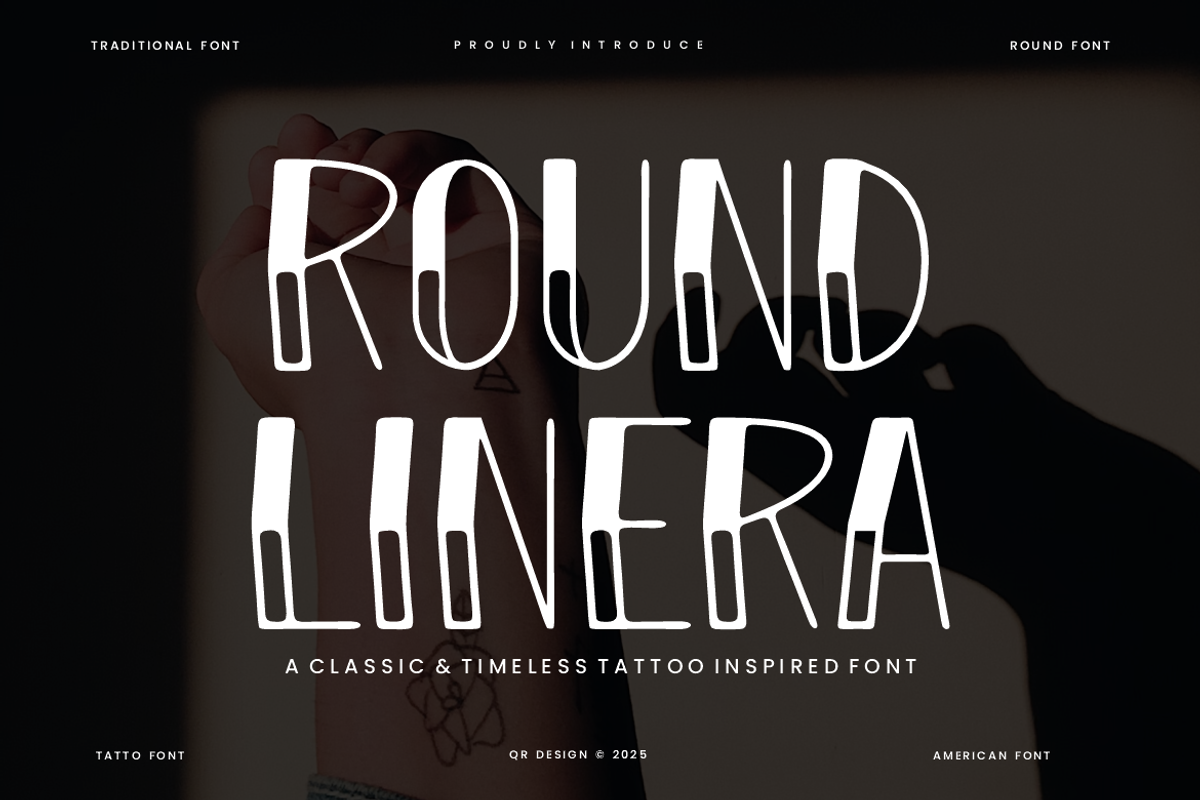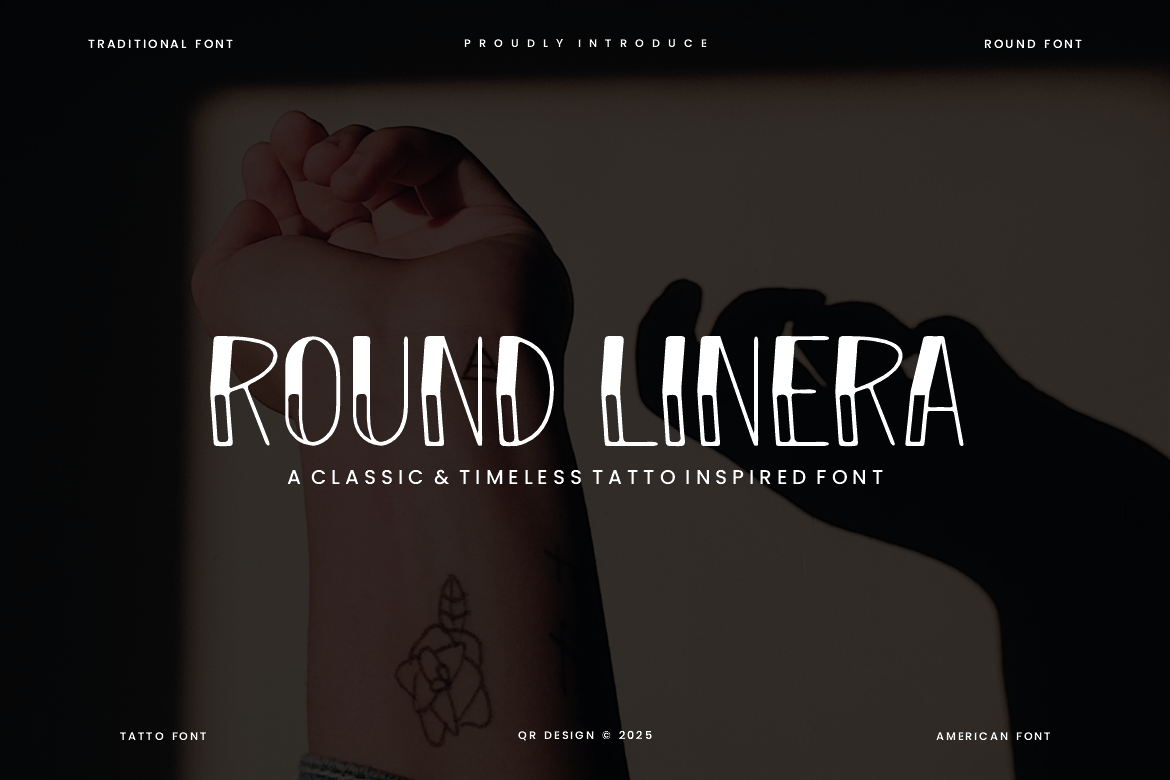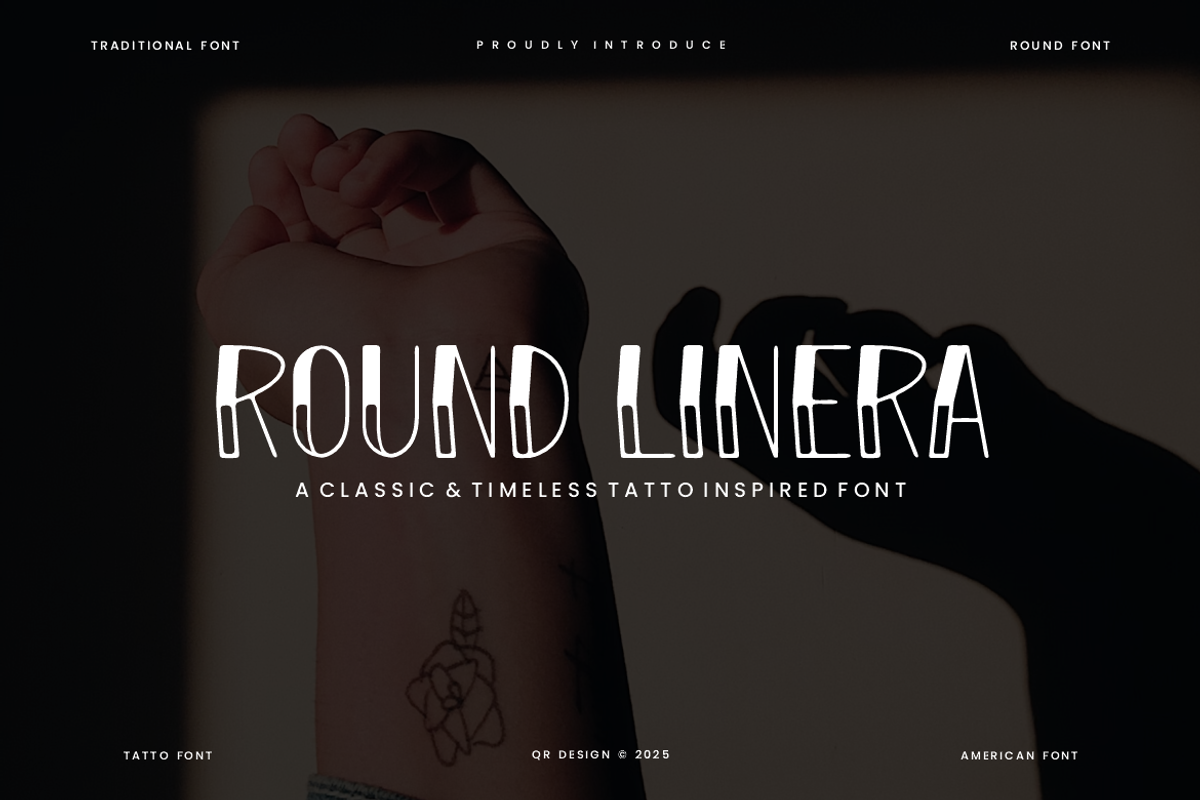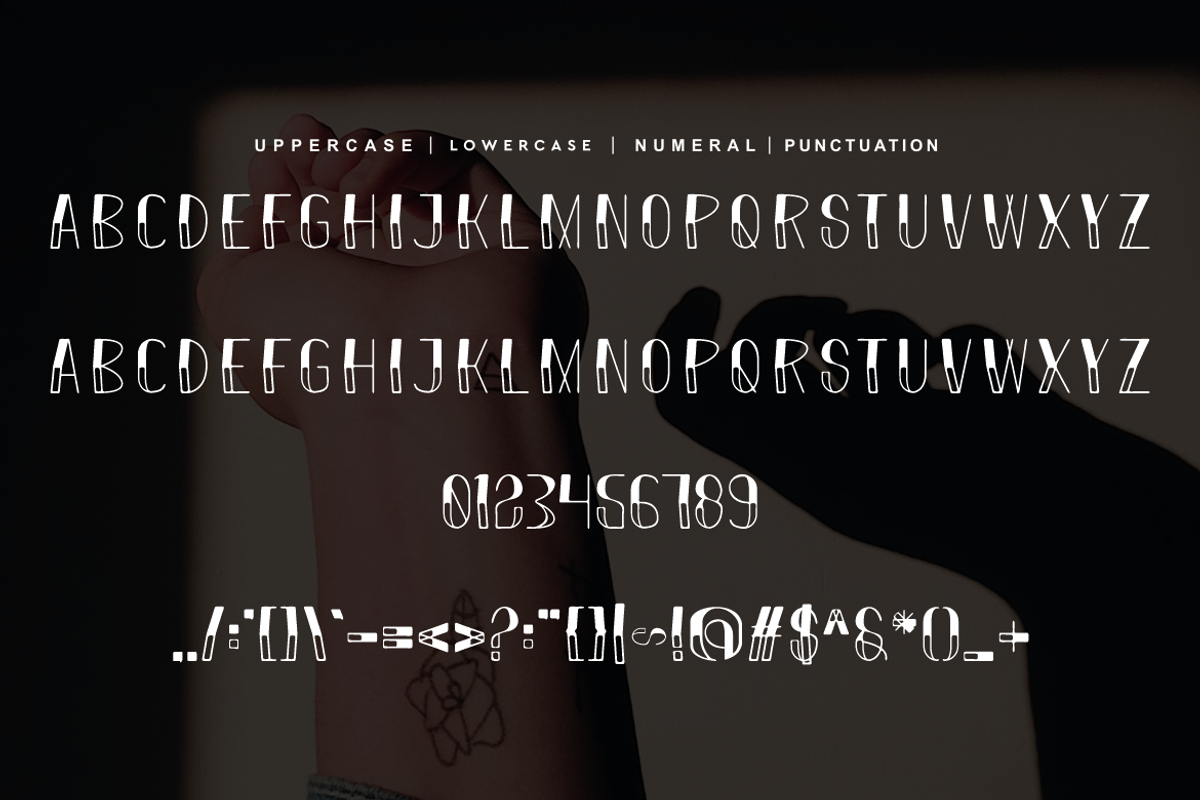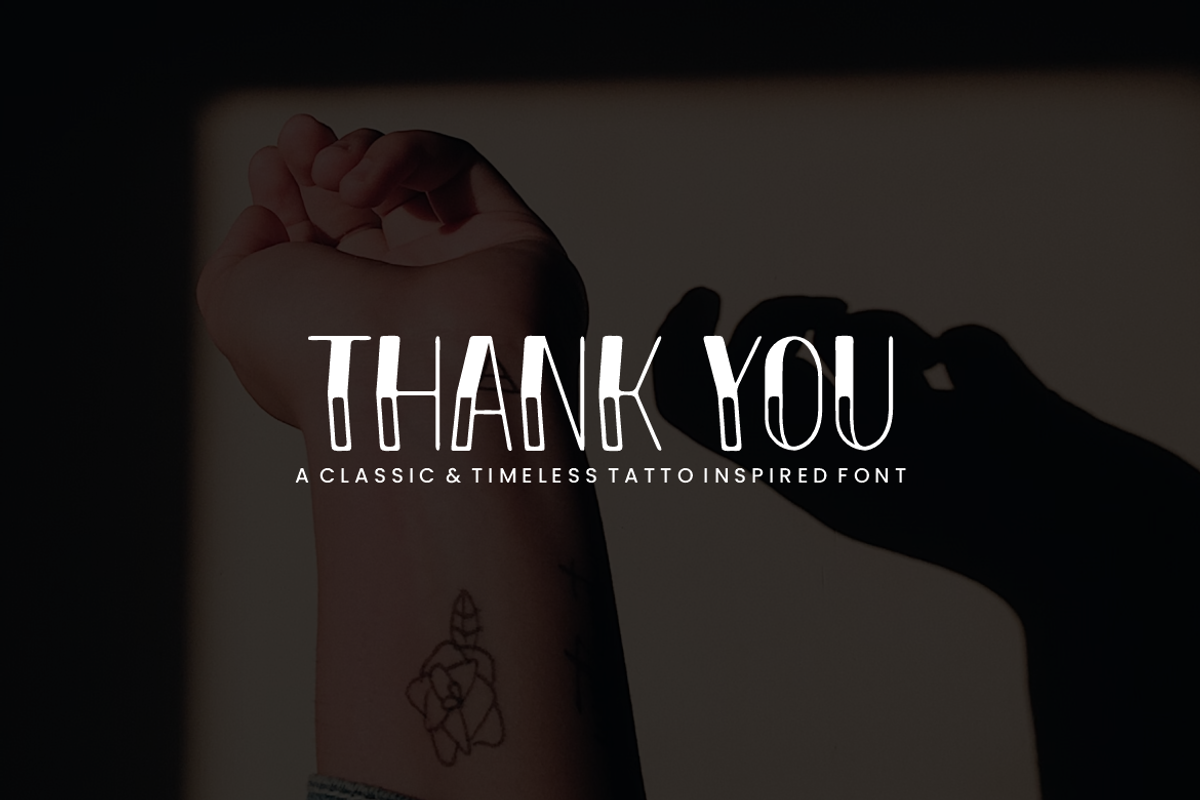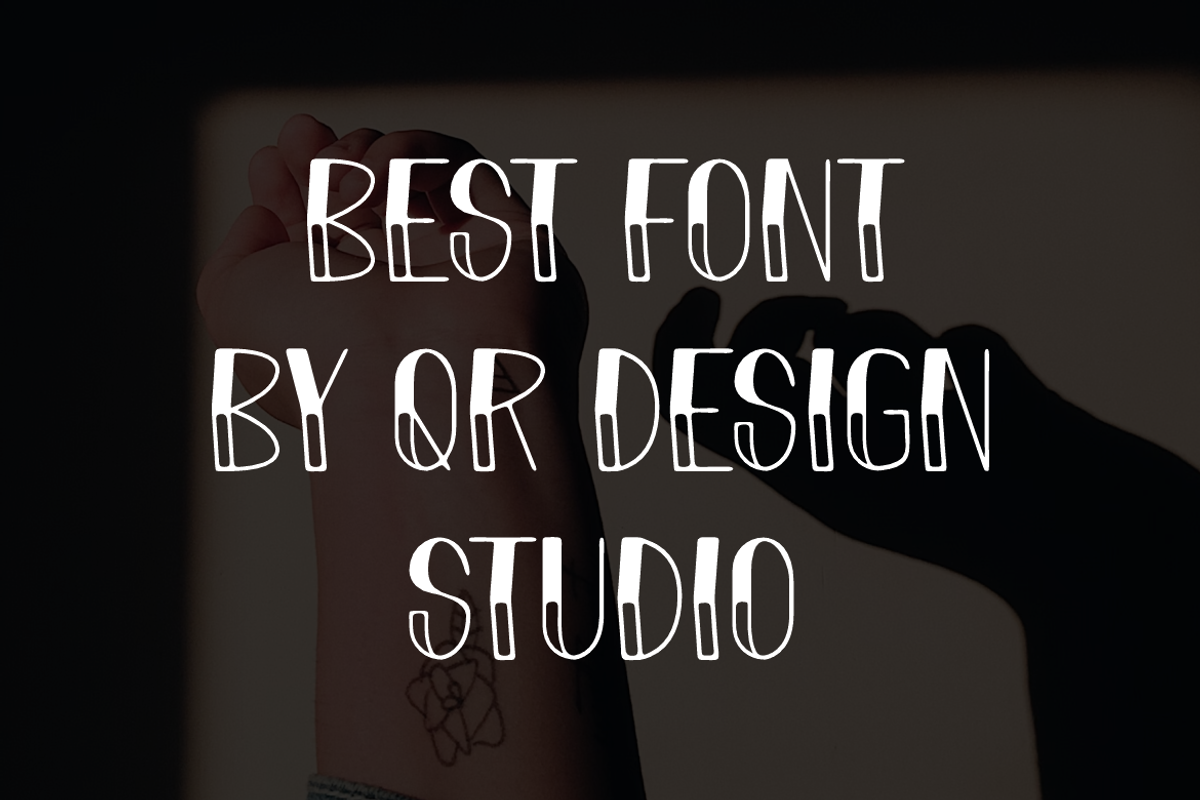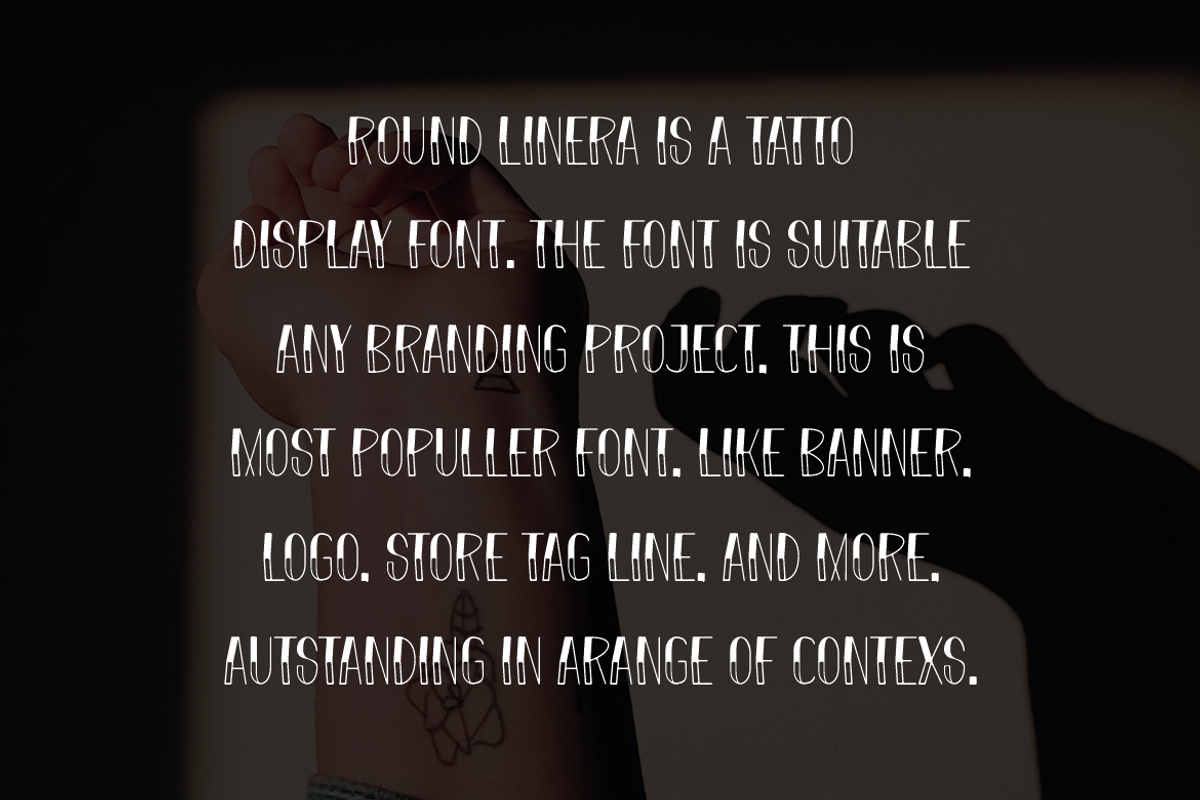
Round Linera - Classic Tattoo Font
Round Linera - Classic Tattoo Font is a bold and authentic display font. The font is suitable for any branding project like poster, logo, sport, and many more. Outstanding in a wide range of contexts.